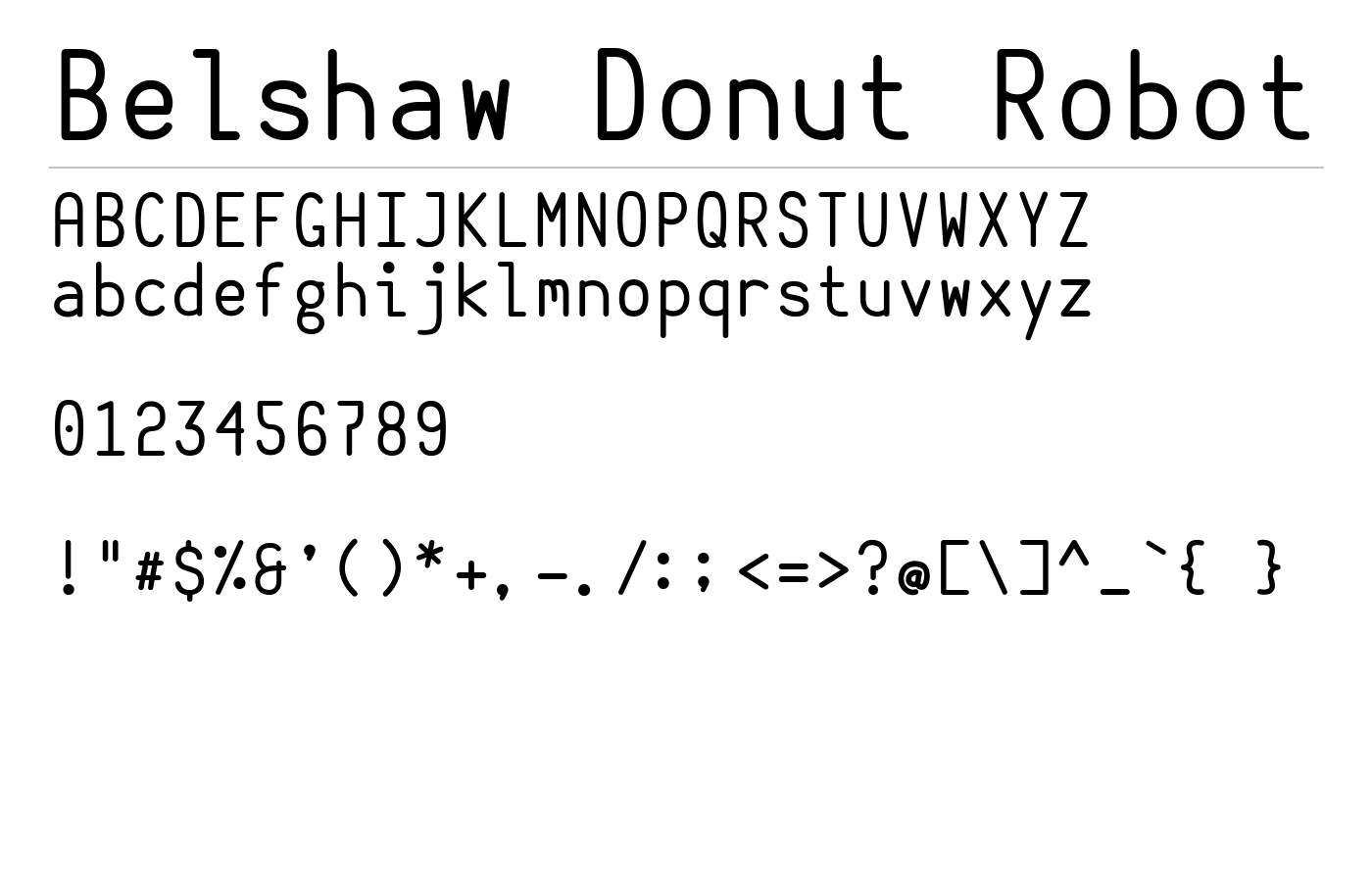
Belshaw Donut Robot is a monospaced sans serif font with a rounded, playful character and a clean, modern feel. Its tall x-height, thin consistent strokes, and slightly quirky letterforms make it ideal for tech-themed designs, coding projects, and creative headlines that want to blend simplicity with a touch of personality. This font works well on websites, editorial layouts, or branding that aims for a friendly yet futuristic look.
Belshaw Donut Robot Font
About Belshaw Donut Robot Font